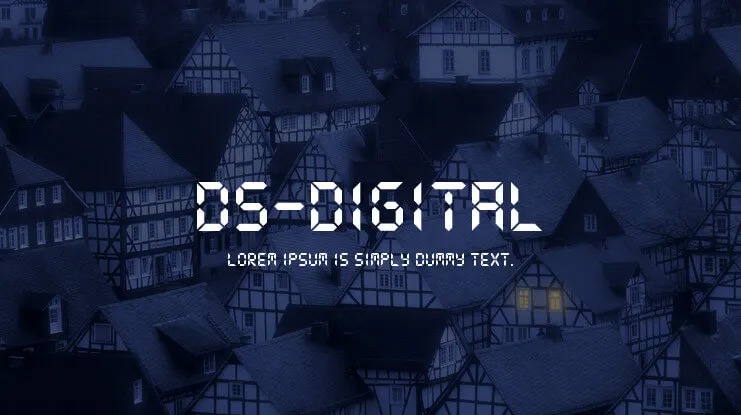
DS Digital Display Font is a simple pixel typeface in regular and extras. Made from font designer named Dusit Supasawat. It was made with accuracy so it can be used either in long paragraphs and as large display type. It’s good for any design project which requires that nostalgic 80s feeling.